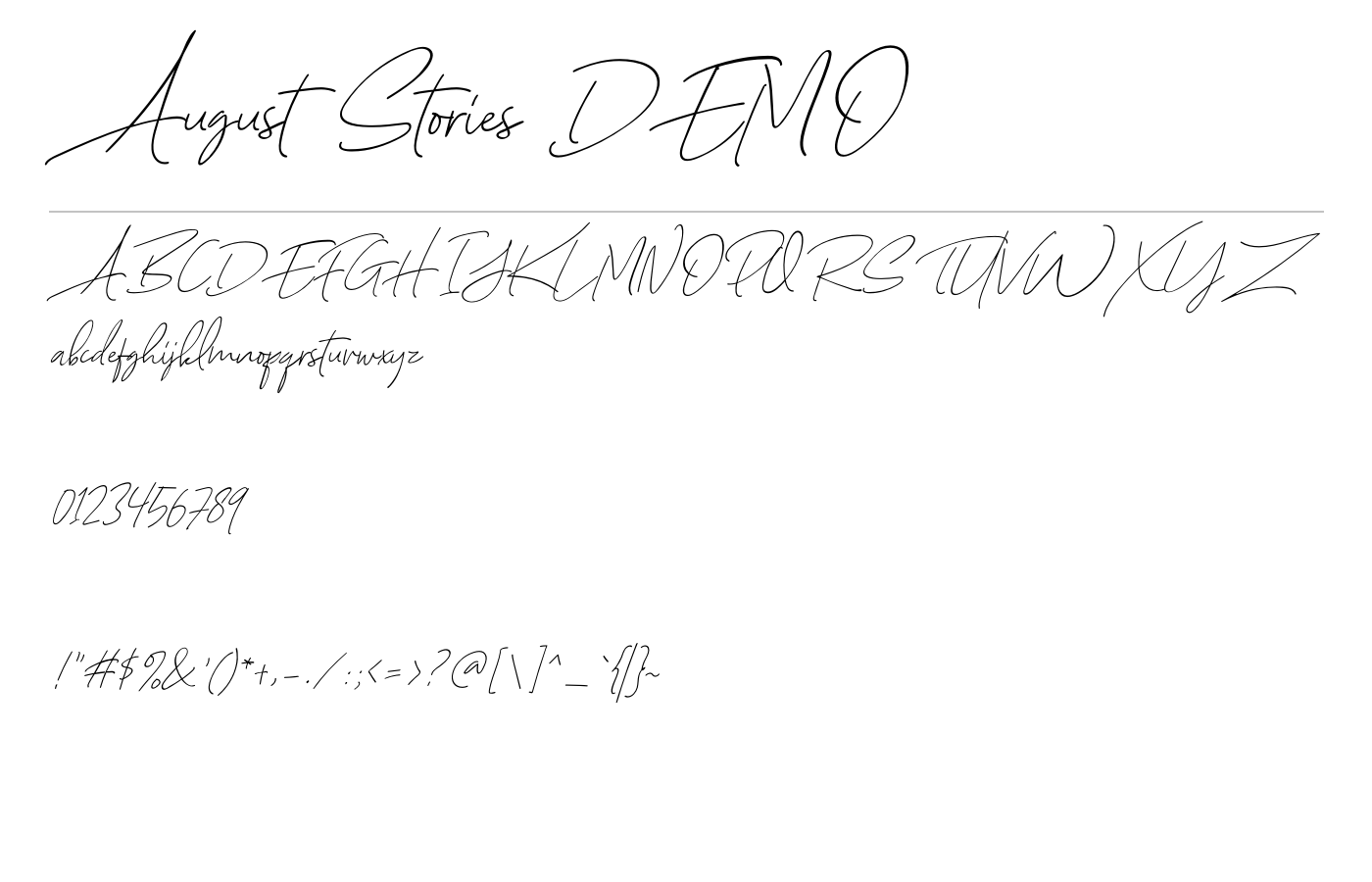
August Stories DEMO is a delicate, handwritten script font characterized by its fine, flowing strokes and elegant, airy letterforms. Its slender, tall characters with subtle variations create a refined, personal feel that works beautifully for invitations, branding, and creative projects where a touch of sophistication and intimacy is desired. This font is ideal for adding an artistic, graceful signature style to designs that seek warmth and individuality.
August Stories DEMO Font
About August Stories DEMO Font